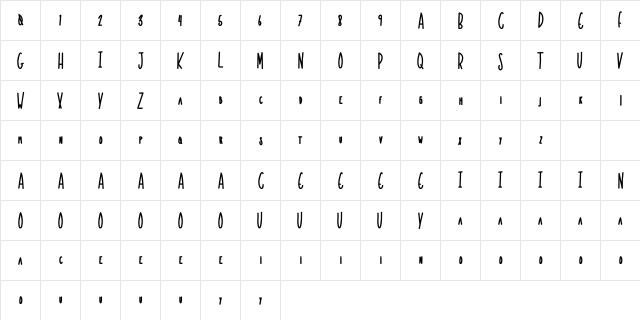
LowBeam Bold Font Preview
LowBeam Bold
LowBeam Bold Font Details
| Designer | Dwayne Adams |
Design Context for LowBeam Typeface
LowBeam is a composed and adaptable typeface that performs quietly and consistently across a wide range of design contexts. Its bold stroke weight gives it real presence on the page.